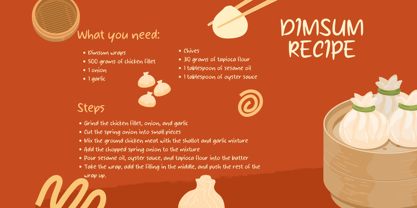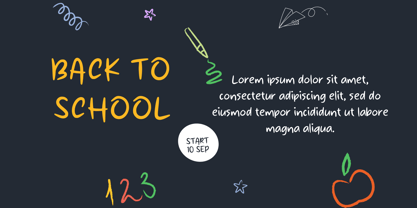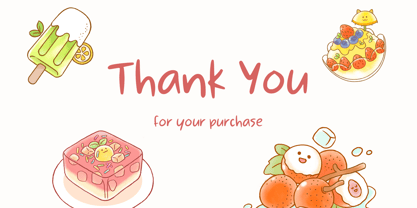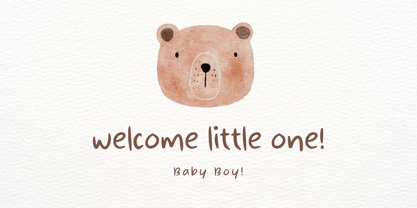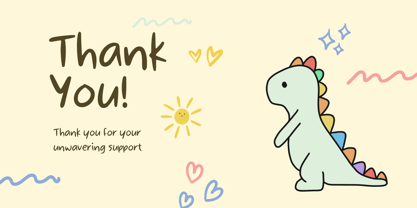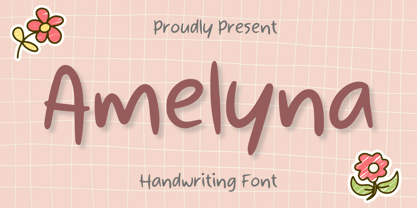
Amelyna
by Aisyah
The Amelyna Font Family was designed by Nur Aiysah Amalia and published by Aisyah. Amelyna contains 1 styles.
Discover the enchanting "amelyna" font, that carries a whimsical charm reminiscent of innocent childhood penmanship. Perfectly tailored for crafting endeavours, the font lends a tender touch to narratives and injects a vibrant splash of imagination into business promotions. The "amelyna" font makes long stretches of text inviting and seamlessly infuses all types of promotions with lively creativity. With its nostalgic allure and light-hearted appeal, "amelyna" ensures that every word is not just seen but fondly appreciated. Turn texts into captivating experiences with amelyna; where each character is an adventure unto itself.